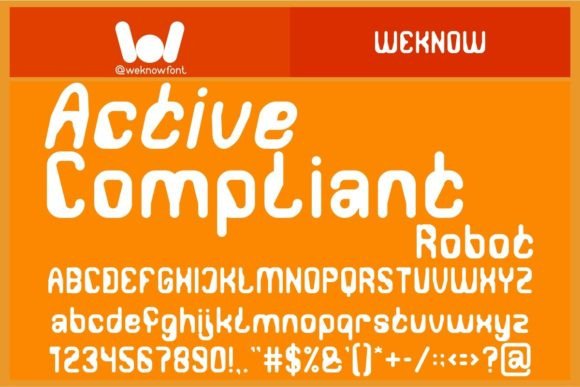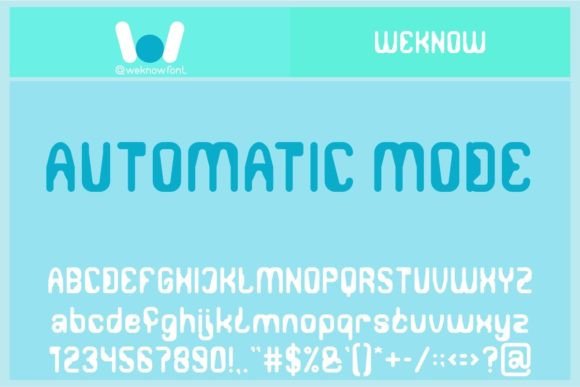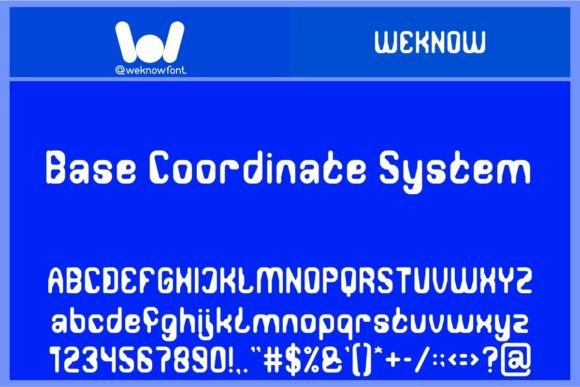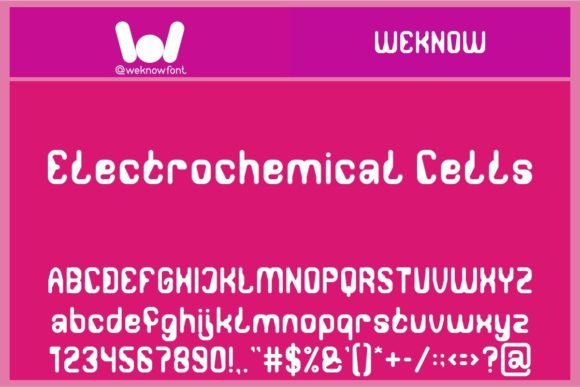
Introduction to Machine Intelligence Font
Have you ever stared at a blank canvas, waiting for the perfect font to spark your next creative project? For designers, finding the right font can be the difference between a mediocre design and a masterpiece. As I sat in front of my computer, scrolling through design resources, I stumbled upon the Machine Intelligence Font – a techno, sci-fi display font that instantly caught my attention.
With its sleek and modern design, the Machine Intelligence Font is a game-changer for designers. Whether you’re working on a logo, logotype, or headline, this font is sure to elevate your design to the next level. And the best part? It’s available for free download, making it an invaluable resource for creatives on a budget.
What sets the Machine Intelligence Font apart is its versatility – perfect for use in a wide range of industries, from apparel and music to movies and magazines. Its transparent background and high-quality design make it an ideal choice for designers looking to add a touch of futurism to their projects.
Key Features of Machine Intelligence Font
- High-quality design: This font is crafted with precision and attention to detail, making it perfect for creative projects that require a sophisticated look.
- Transparent background: This font features a transparent background, allowing for seamless integration with any design or creative project.
- High-resolution design: With a resolution of 300 DPI, this font is suitable for high-quality prints and digital applications.
- Unique characteristics: Machine Intelligence Font features a unique blend of modern and futuristic elements, making it an ideal choice for designers looking to add a touch of innovation to their projects.
- Size and scalability: The font is available in a range of sizes, from 8pt to 120pt, allowing designers to scale it to suit their specific needs.
Honest Review: Machine Intelligence Font
I recently had the opportunity to experiment with the Machine Intelligence Font, and I must say, it’s a unique addition to any creative project. With its sleek and futuristic design, it’s perfect for anyone looking to give their work a cutting-edge feel.
- ✨ High-quality design that’s perfect for futuristic and tech-related projects.
One of the standout features of the Machine Intelligence Font is its transparent background, which makes it easy to integrate into any design without distractions.
- ⚠️ Limited character set, which may be a drawback for designers who need a full range of characters.
- ⚠️ May not be suitable for projects that require a more traditional or vintage aesthetic.
Overall, the Machine Intelligence Font is a valuable design resource that’s sure to bring a touch of modernity to any project. With its high-quality design and free download, it’s definitely worth checking out.
Tips for Getting the Most Out of Machine Intelligence Font
To get the most out of the Machine Intelligence Font, try the following:
– Experiment with different font sizes and styles to add visual interest to your design.
– Use the font’s transparent background to create unique compositions.